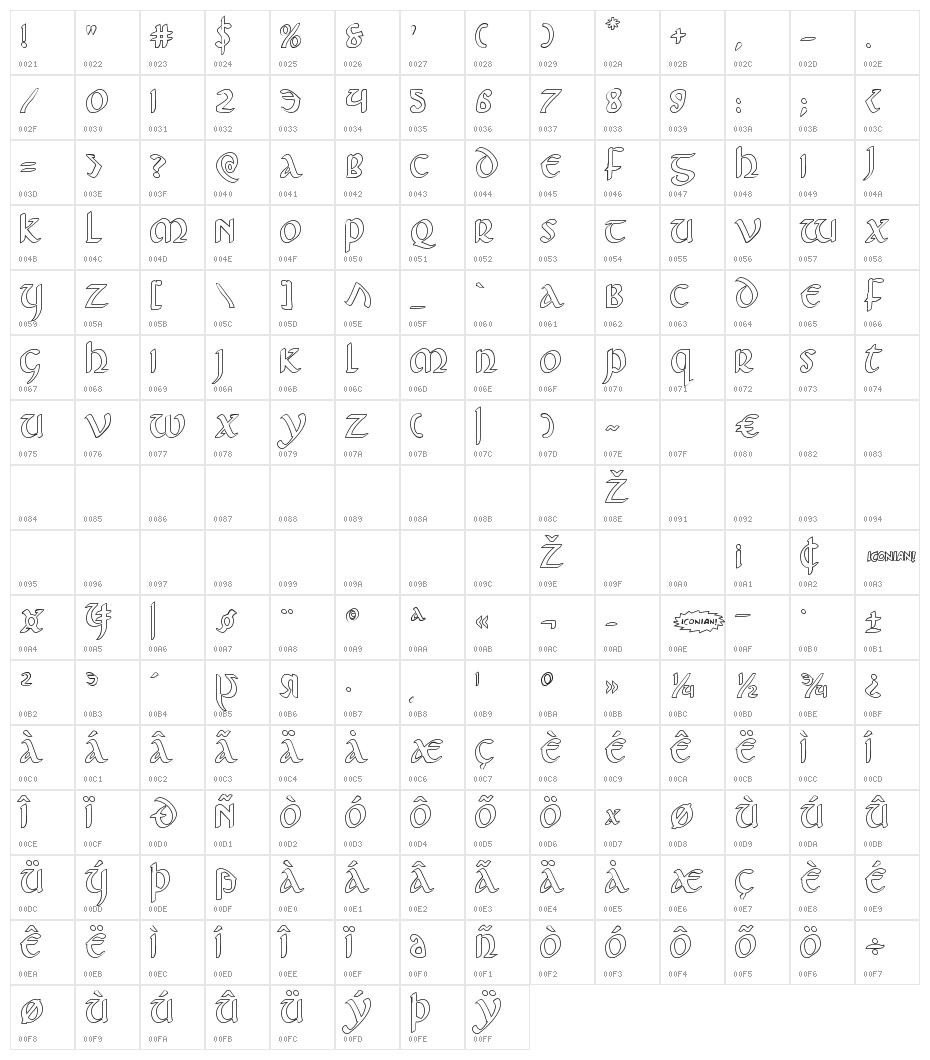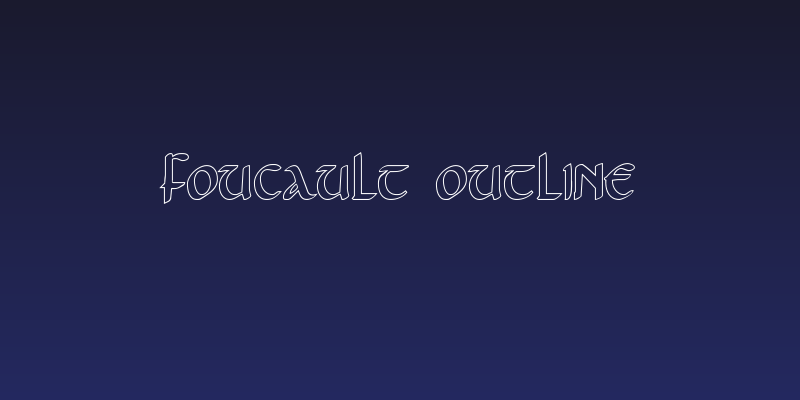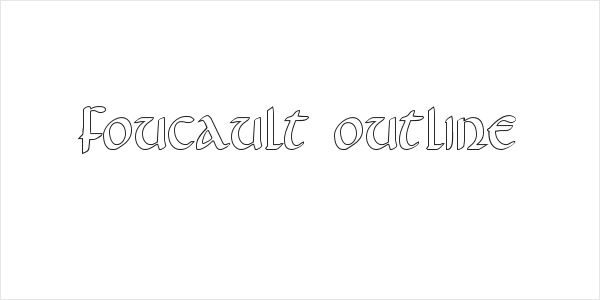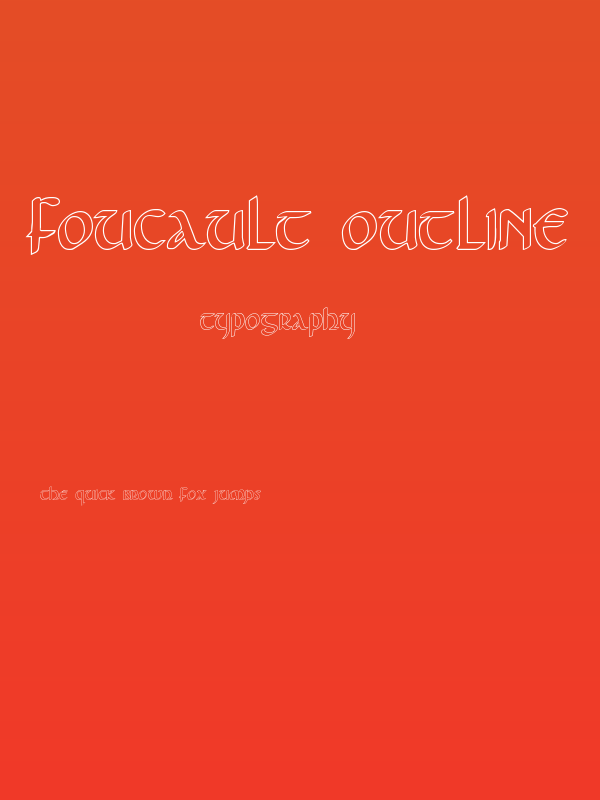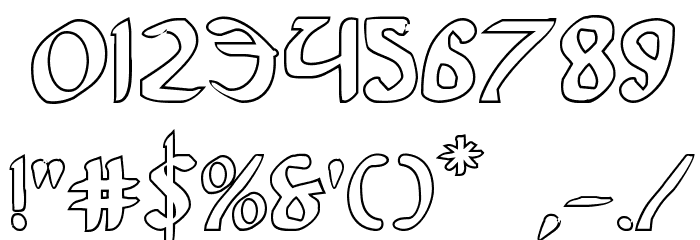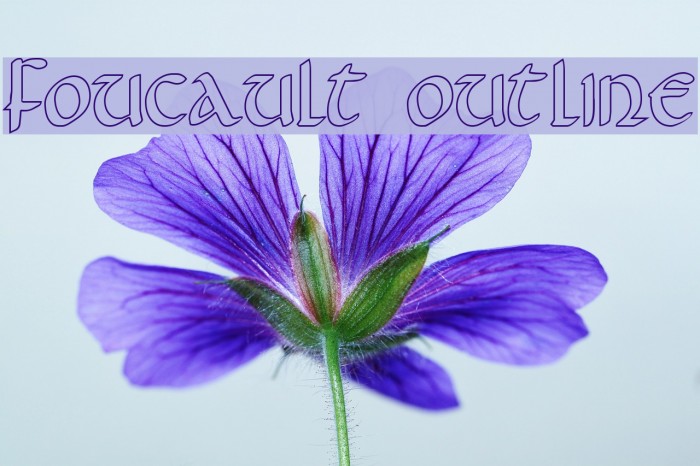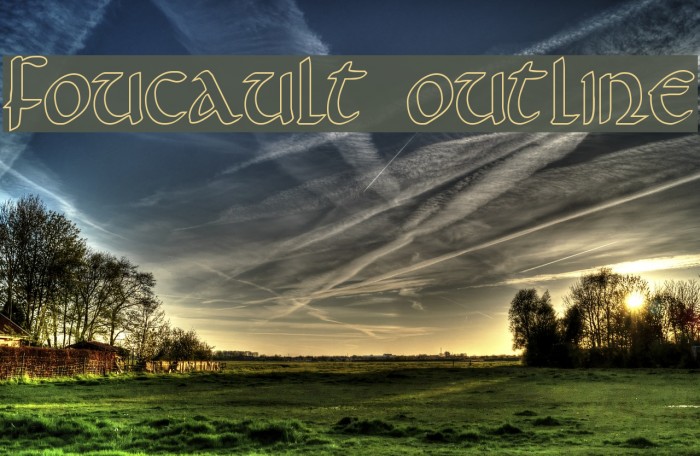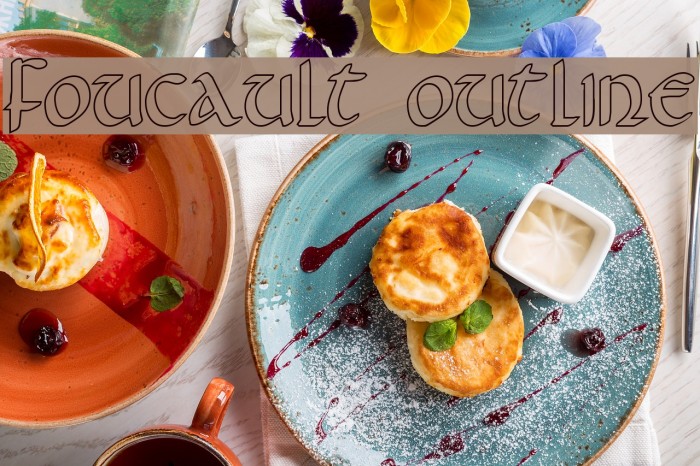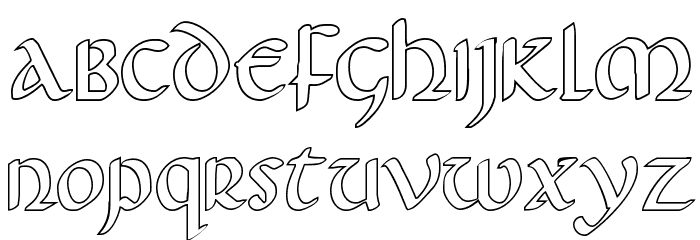
Foucault Outline Font
Foucault Outline Description
This font features a unique outline style with a decorative flair, characterized by its bold, angular strokes and sharp serifs. The uppercase and lowercase letters maintain a consistent design, with a slightly medieval or gothic influence. The numbers are distinct and maintain the same stylistic elements, ensuring uniformity across all characters. Special characters are also included, matching the overall aesthetic. The font's outline nature gives it a light, airy feel while still being bold and eye-catching.
| Proposed Projects | Ideal for projects that require a medieval or fantasy theme, such as book covers, posters, or themed event invitations. |